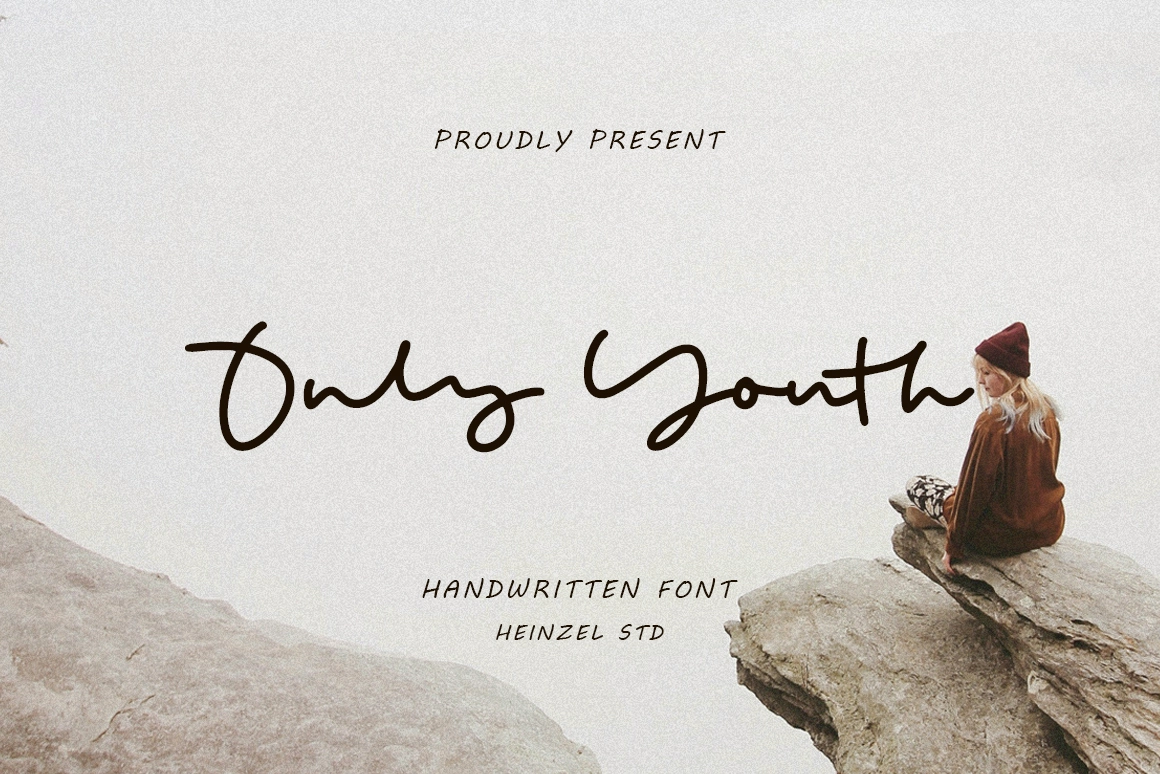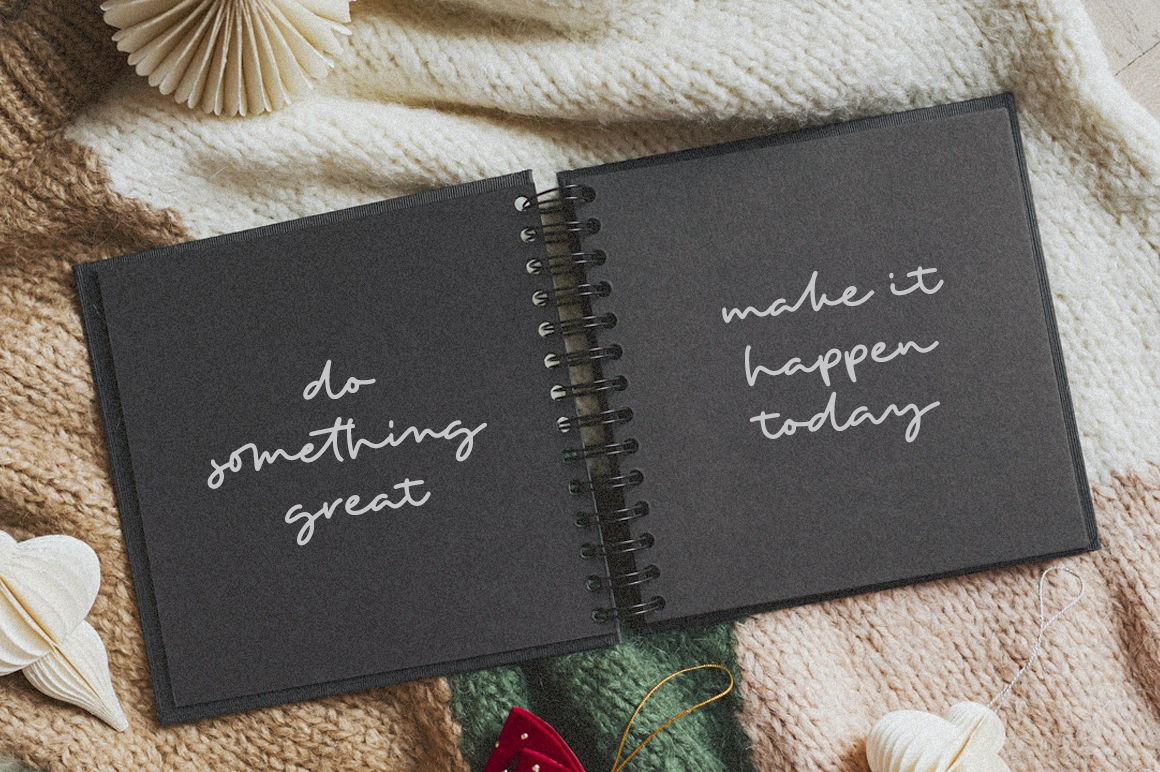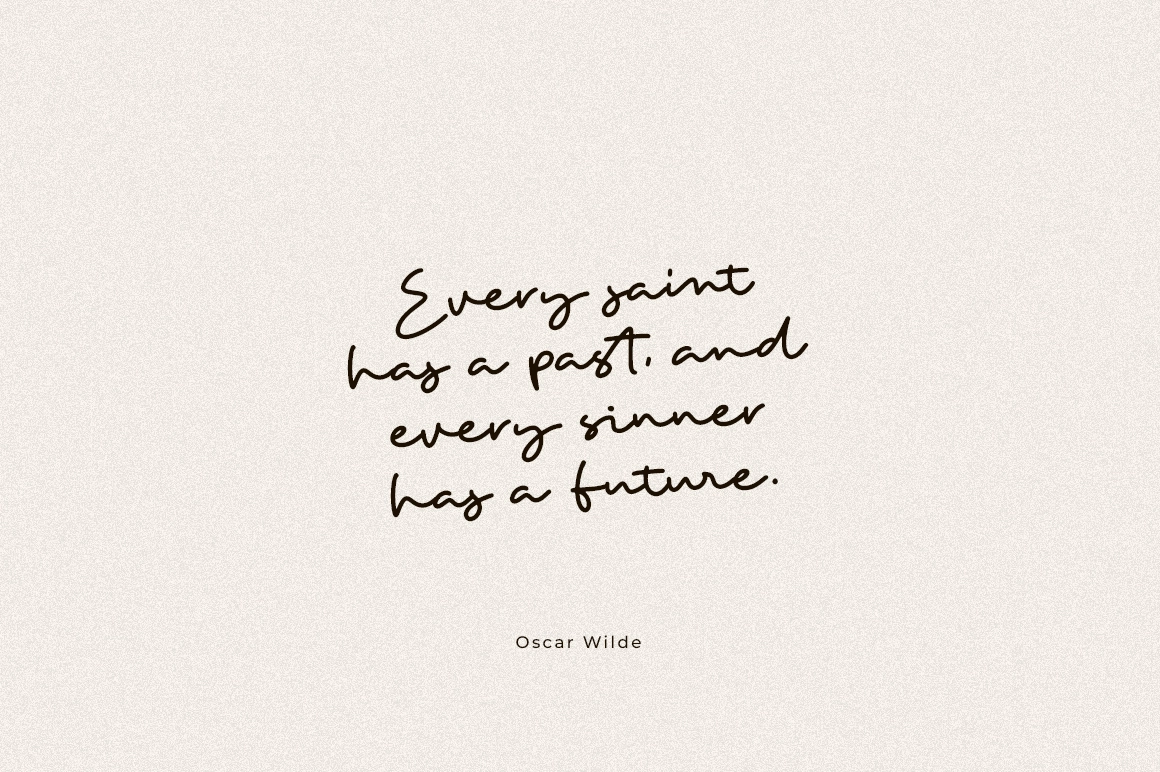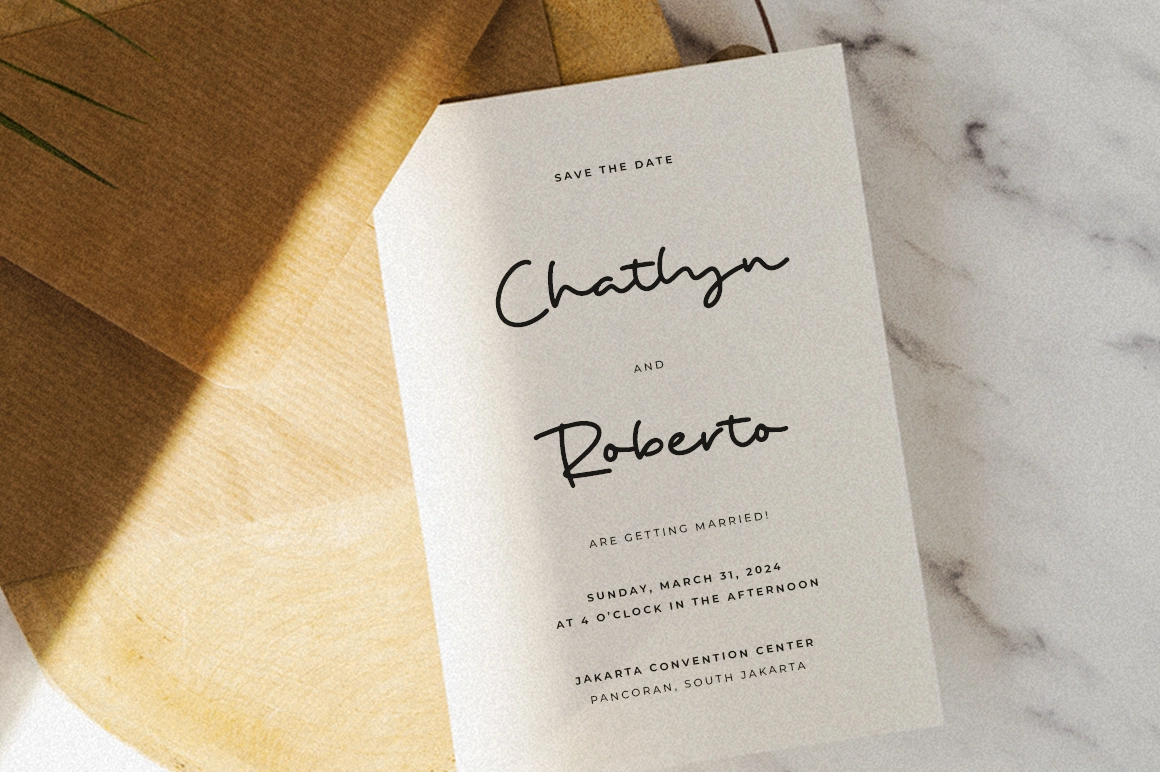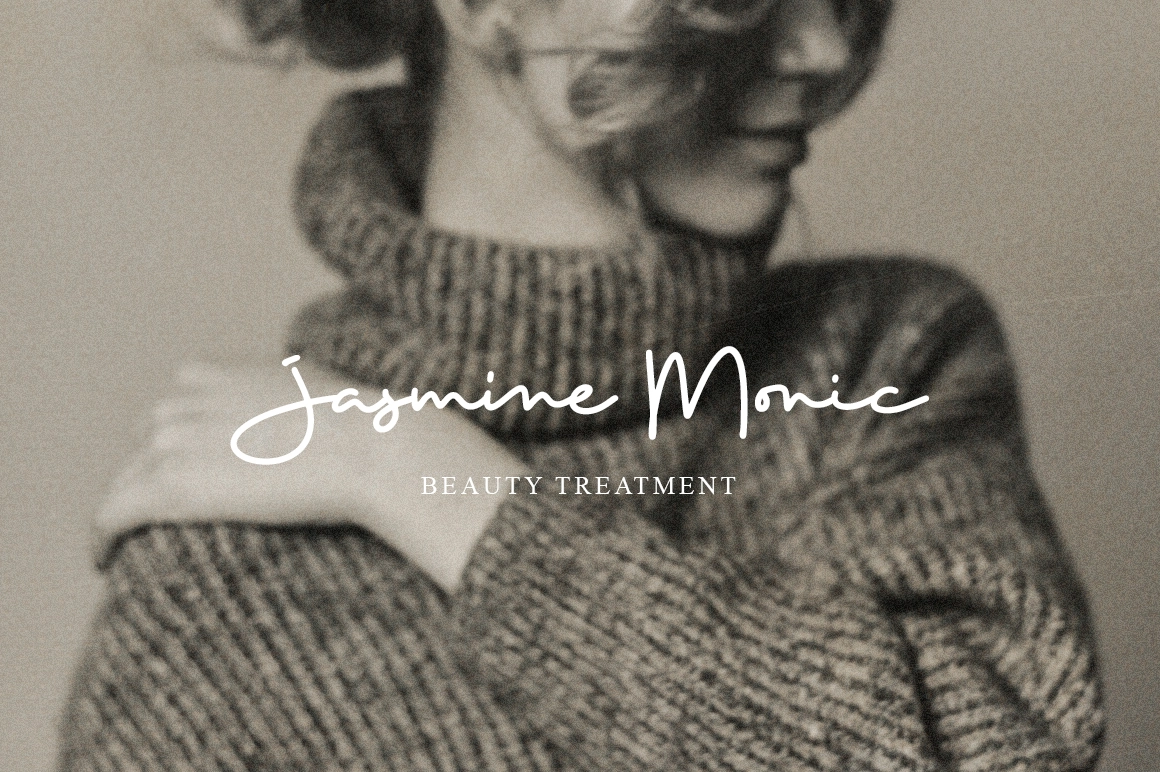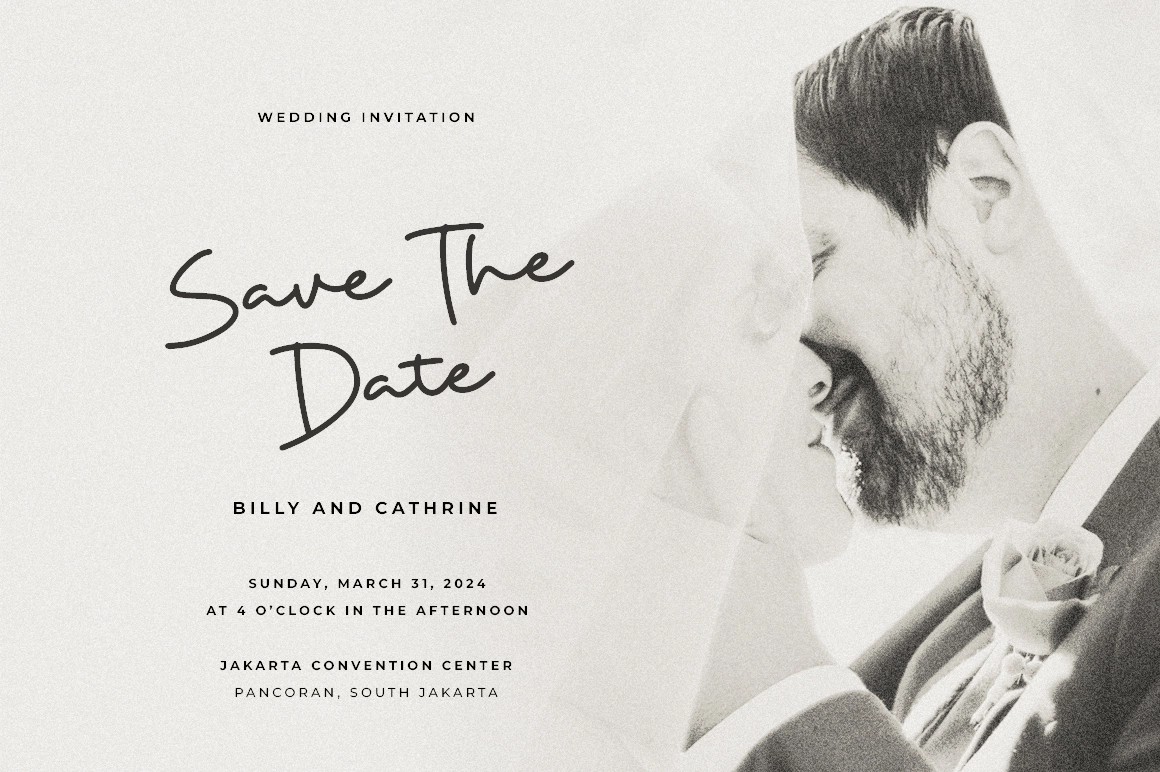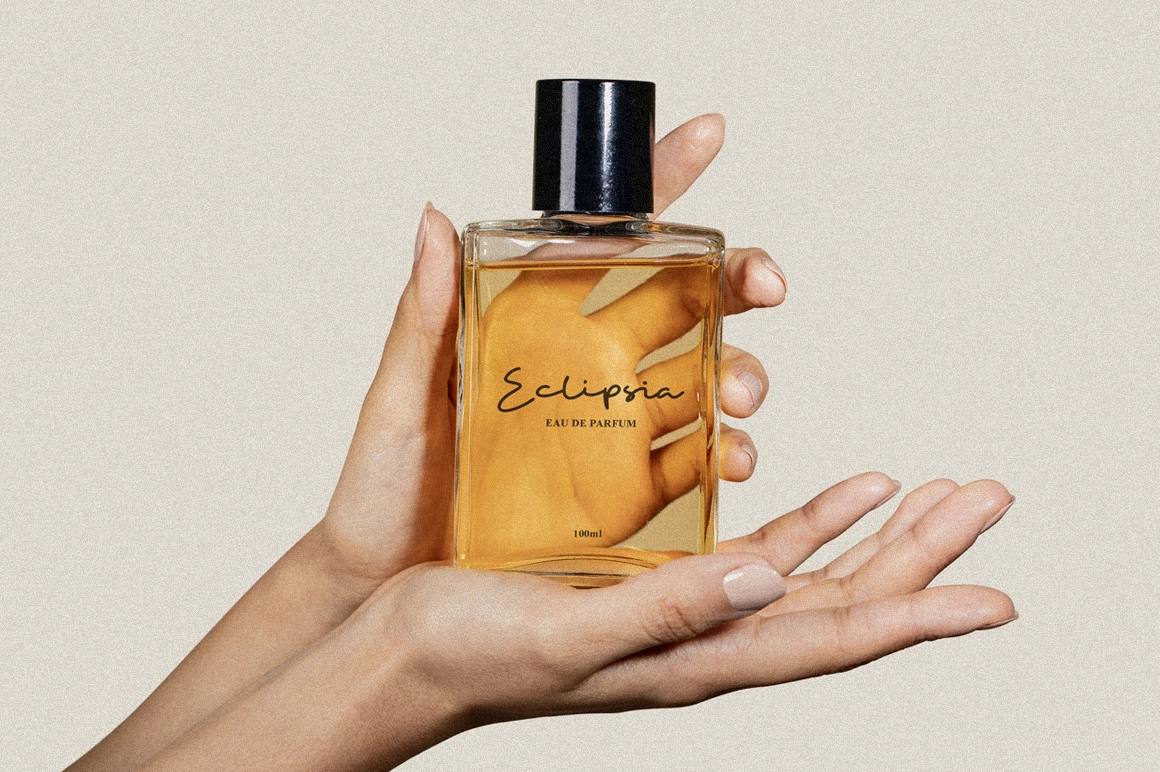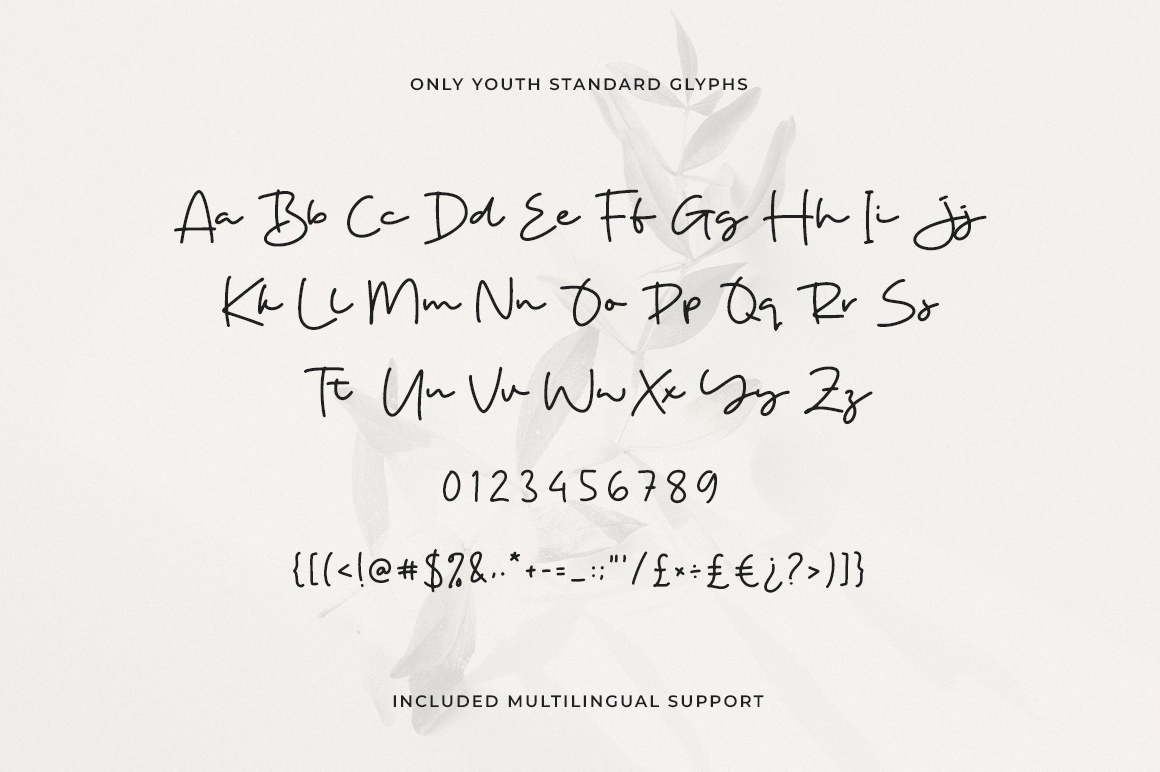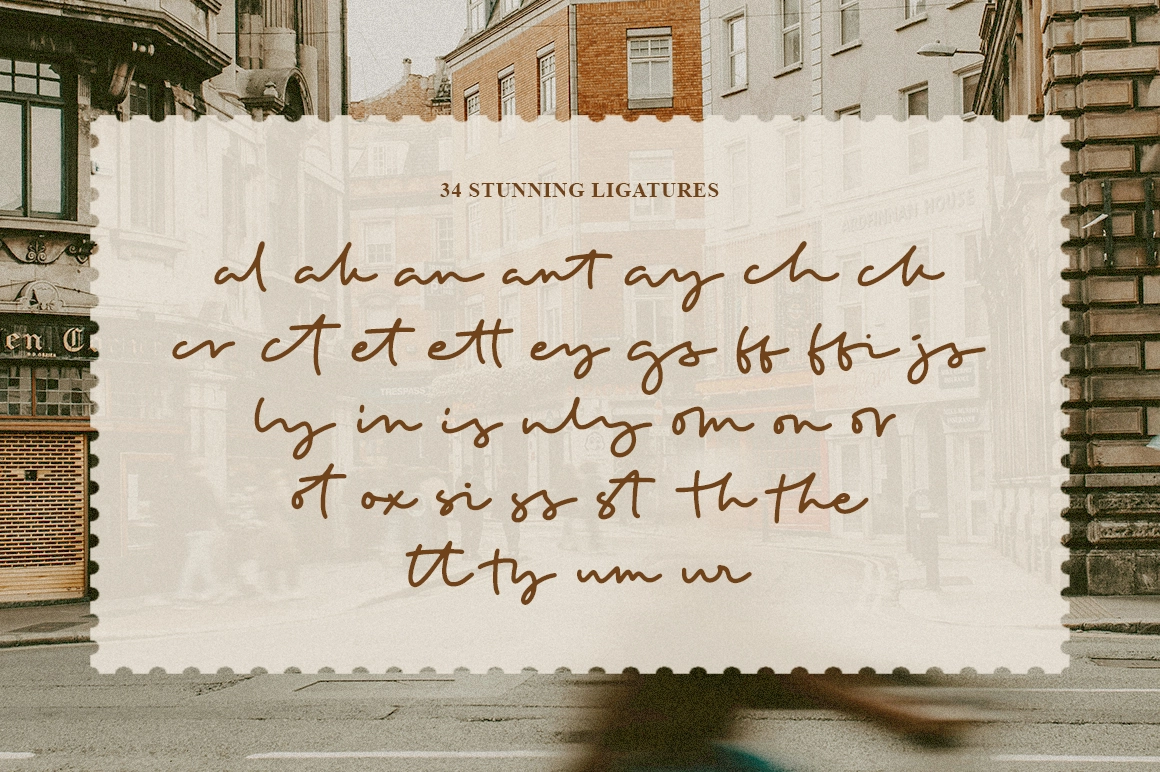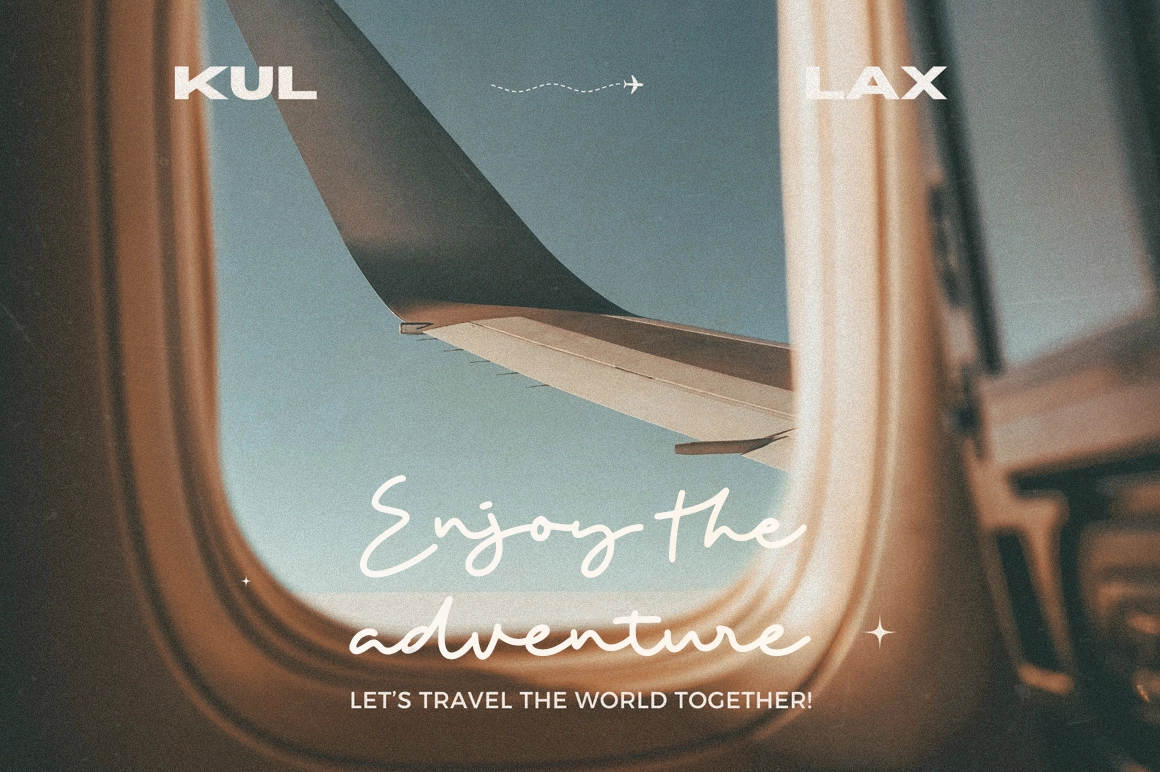
Only Youth - Signature Handwritten Font
A handwritten script with loose, fluid strokes and an easy personal rhythm. Its signature look is casual but polished, with long connections, quick turns, and natural variation that gives words a warm, human character.
Only Youth works beautifully for wedding invitations, save-the-date cards, personal logos, boutique branding, photography watermarks, quote graphics, social media posts, packaging accents, editorial headers, greeting cards, and lifestyle stationery. It has enough movement for expressive headlines while keeping the letterforms clean for short phrases, names, and small brand details.
- 34 ligatures
- Standard glyphs